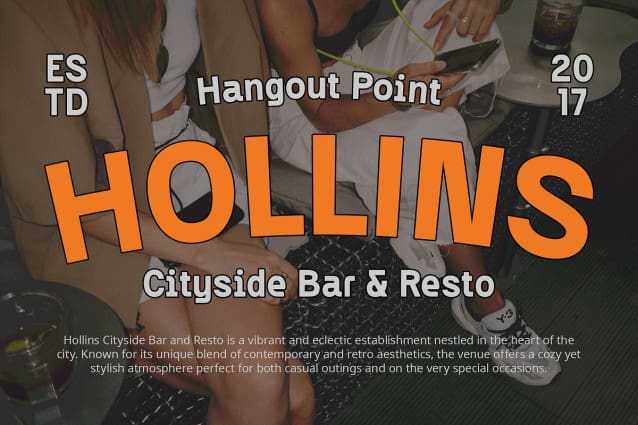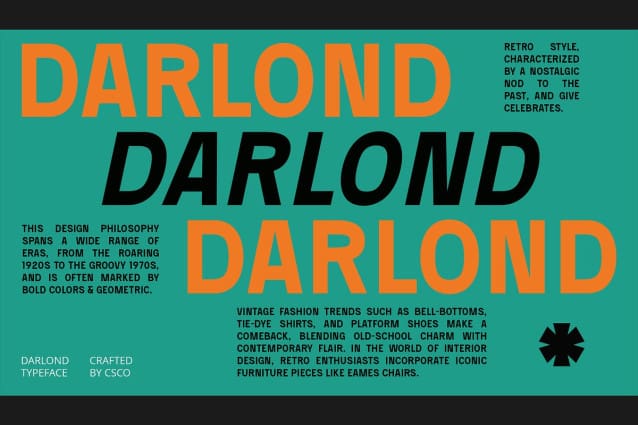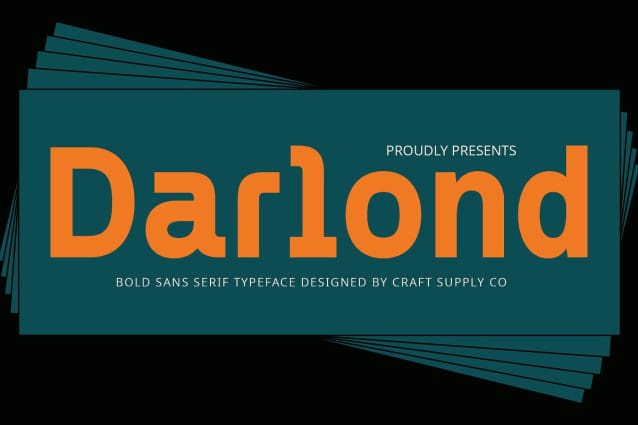
Darlond Font
Darlond Font is a bold sans-serif font with a retro vibe, suitable for professional use. Its bold appearance adds a classic yet vibrant and engaging impression to various designs, making it ideal for projects that aim to stand out and make a statement.
With its versatile design, Darlond Font is suitable for a wide range of professional uses, including branding, advertising, and editorial design. Its retro vibe adds a touch of nostalgia and personality, ensuring that your designs are both memorable and impactful.
Darlond Font prioritizes visual impact, ensuring that your designs are bold and eye-catching. Whether used in print or digital media, this font adds a dynamic and energetic element that captivates viewers.
Whether you’re creating a logo, designing a poster, or developing a website, Darlond Font is the perfect choice for projects that require a classic yet vibrant and engaging look. Its bold sans-serif style ensures that your designs will always look bold and dynamic.
Stand out from the crowd with Darlond Font and add a touch of retro charm to your designs.